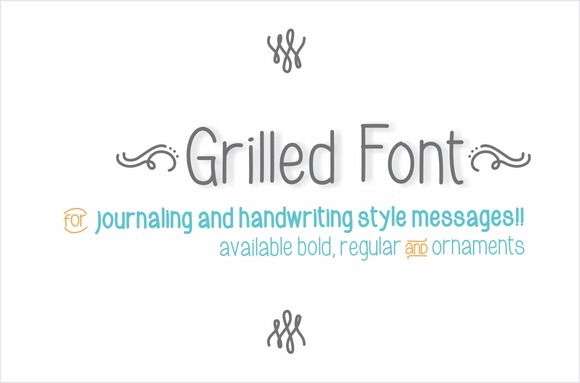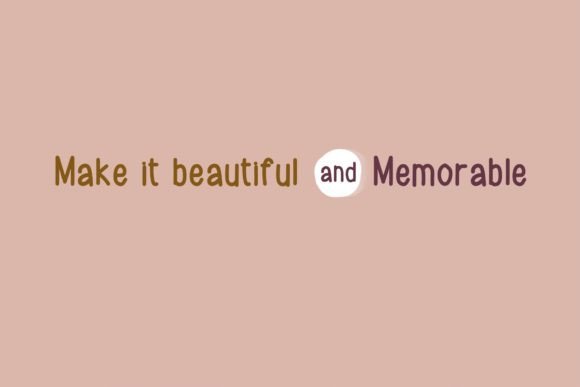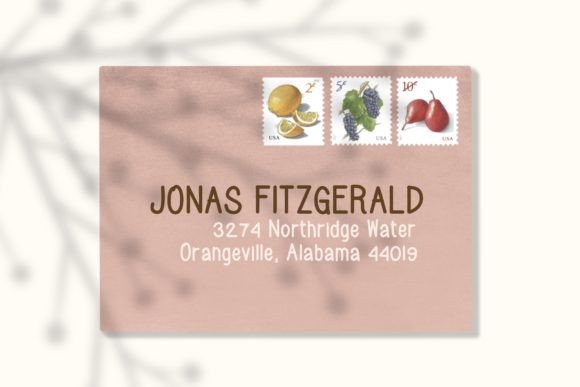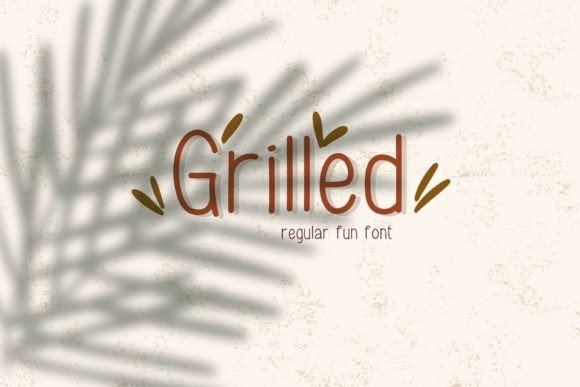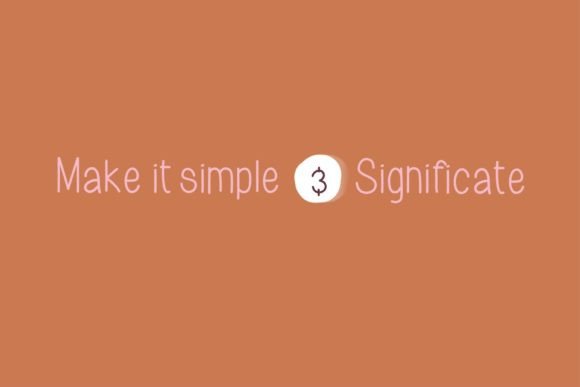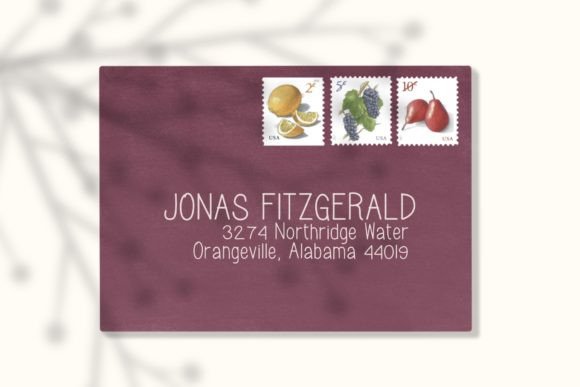
Introducing Grilled Font: A Handwritten Typeface with a Clean Design
Are you a designer or crafter looking for a unique and stylish font to elevate your creative projects? Look no further than Grilled Font, a handwritten typeface with a clean design that’s sure to impress. In this article, we’ll dive into the world of Grilled Font, exploring its features, benefits, and uses, as well as provide tips and inspiration for incorporating it into your work.
What is Grilled Font?
Grilled Font is a modern, handwritten typeface that’s characterized by its clean and elegant design. With its smooth lines and flowing curves, this font is perfect for adding a touch of sophistication and personality to your projects. Whether you’re working on a logo, branding materials, or digital content, Grilled Font is a versatile choice that can help you stand out from the crowd.
Key Features of Grilled Font
- Handwritten style: Grilled Font has a unique, handwritten look that’s both personal and approachable.
- Clean design: The font’s clean lines and simple shapes make it easy to read and versatile for use in a variety of contexts.
- Modern feel: Grilled Font has a fresh, modern aesthetic that’s perfect for contemporary designs and branding.
- High-quality: This font is designed with precision and attention to detail, ensuring that it looks great in any size or application.
Benefits of Using Grilled Font
So why choose Grilled Font for your next project? Here are just a few benefits of using this amazing typeface:
- Adds personality: Grilled Font’s unique, handwritten style can help you add a touch of personality and whimsy to your designs.
- Improves readability: The font’s clean design and simple shapes make it easy to read, even at small sizes.
- Versatile: Grilled Font can be used in a wide range of applications, from logos and branding to digital content and print materials.
- Time-saving: With Grilled Font, you can create professional-looking designs quickly and easily, without sacrificing style or quality.
Using Grilled Font in Your Designs
So how can you use Grilled Font in your designs? Here are a few ideas to get you started:
- Logos and branding: Grilled Font is a great choice for logos, business cards, and other branding materials.
- Digital content: Use Grilled Font to add a touch of personality to your blog posts, social media graphics, and other digital content.
- Print materials: Grilled Font is perfect for print materials like brochures, flyers, and posters.
- Crafting and DIY projects: If you’re a crafter or DIY enthusiast, Grilled Font can add a touch of style and sophistication to your projects.
To get the most out of Grilled Font, here are a few tips and inspiration ideas:
- Experiment with colors: Grilled Font looks great in a variety of colors, so don’t be afraid to experiment and find the perfect hue for your design.
- Mix and match: Try pairing Grilled Font with other fonts or design elements to create a unique and eye-catching look.
- Play with texture: Add some texture to your design by incorporating Grilled Font into a background or overlay.
| Font Name | Grilled Font |
| Author | Carolina Mejia |
In conclusion, Grilled Font is a versatile and stylish handwritten typeface that’s perfect for designers and crafters looking to add a touch of personality and sophistication to their projects. With its clean design, modern feel, and high-quality construction, Grilled Font is a great choice for a wide range of applications. So why not give it a try and see how it can elevate your designs?